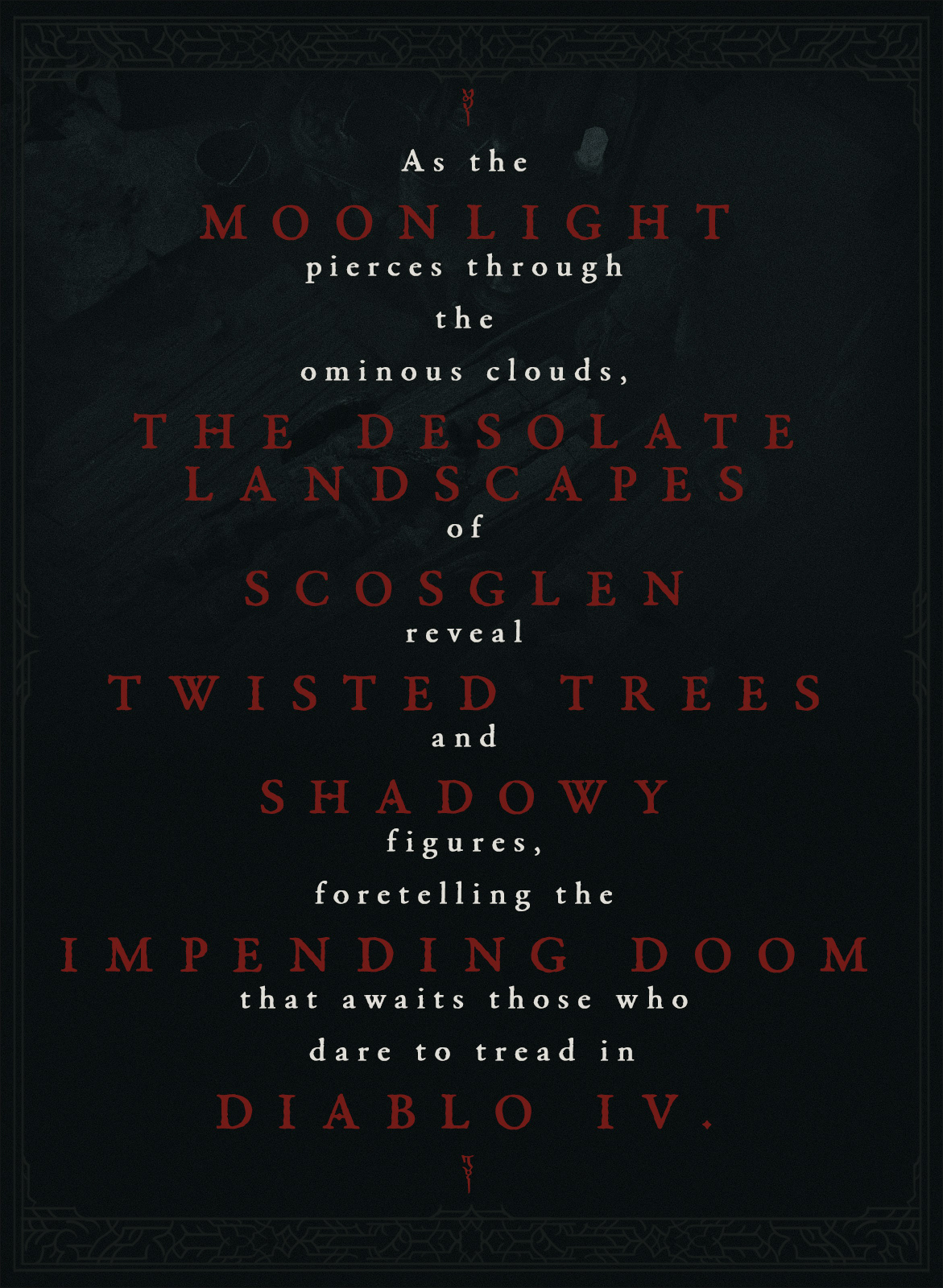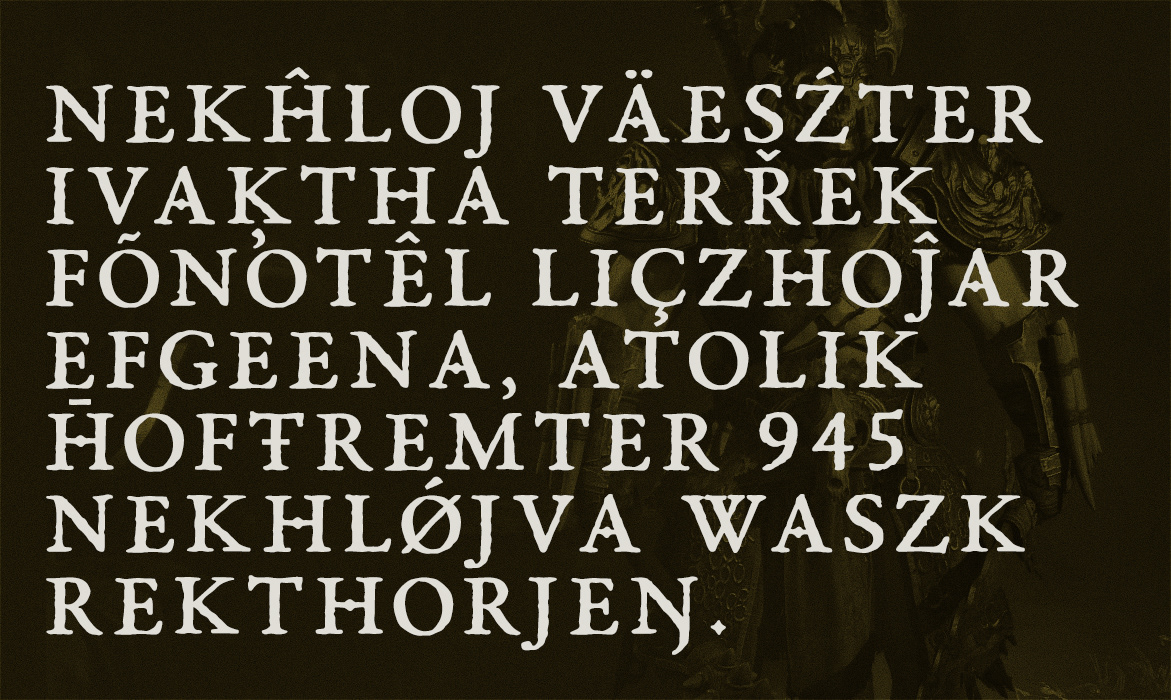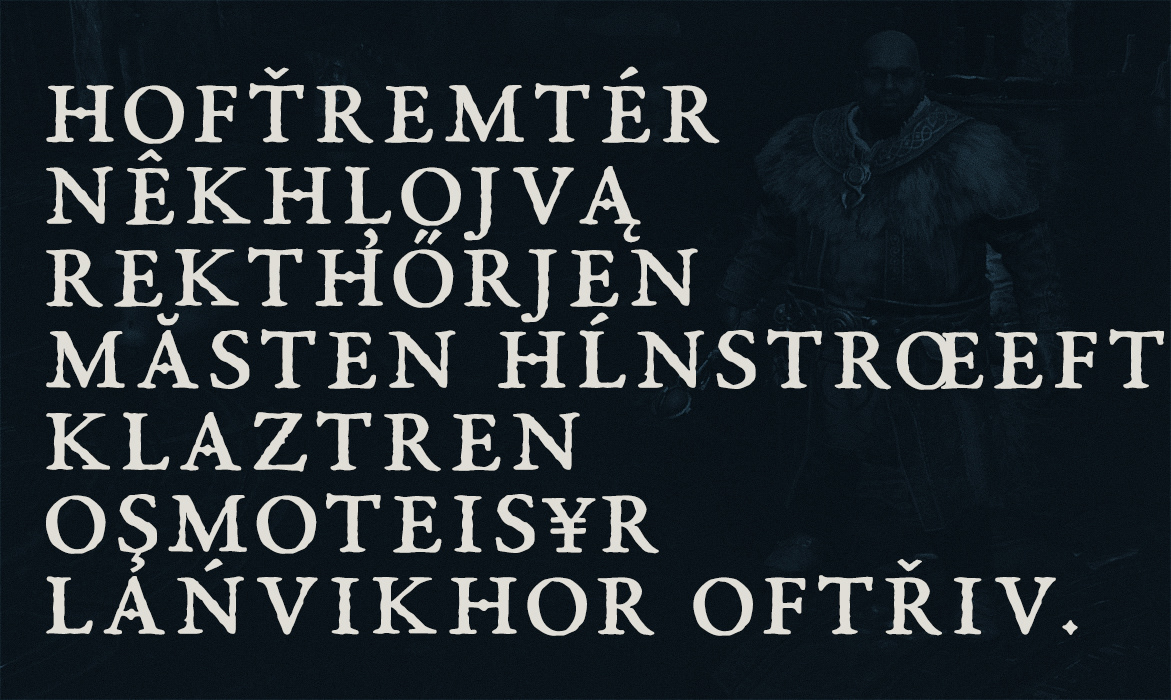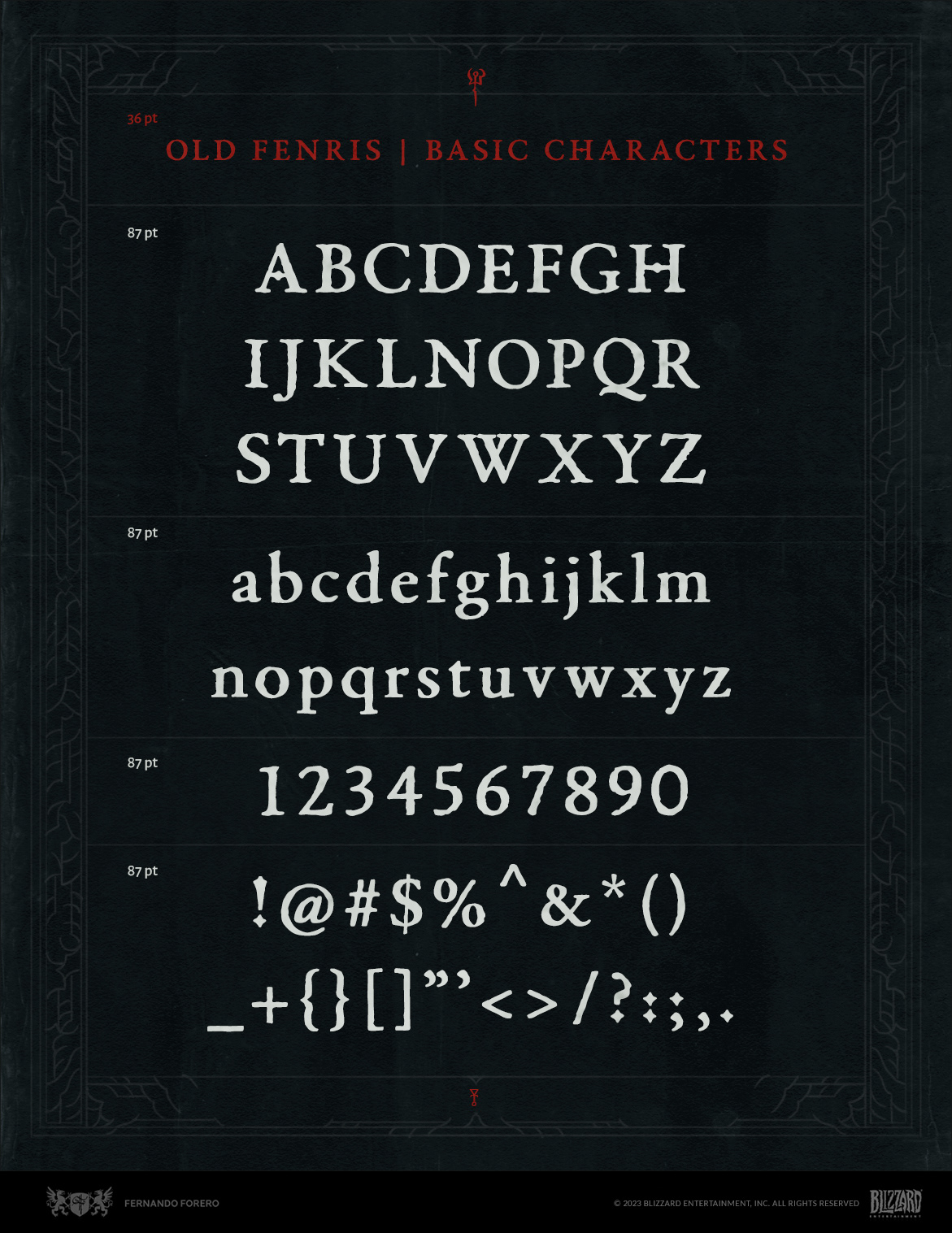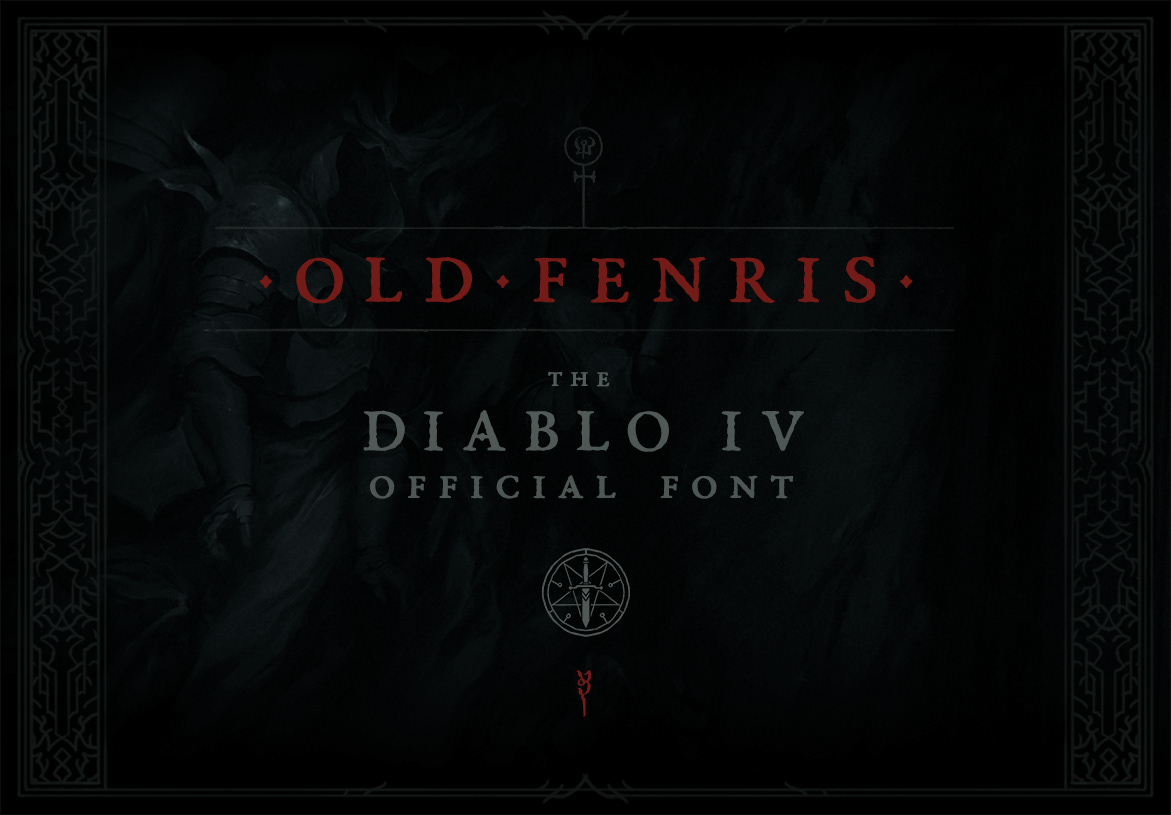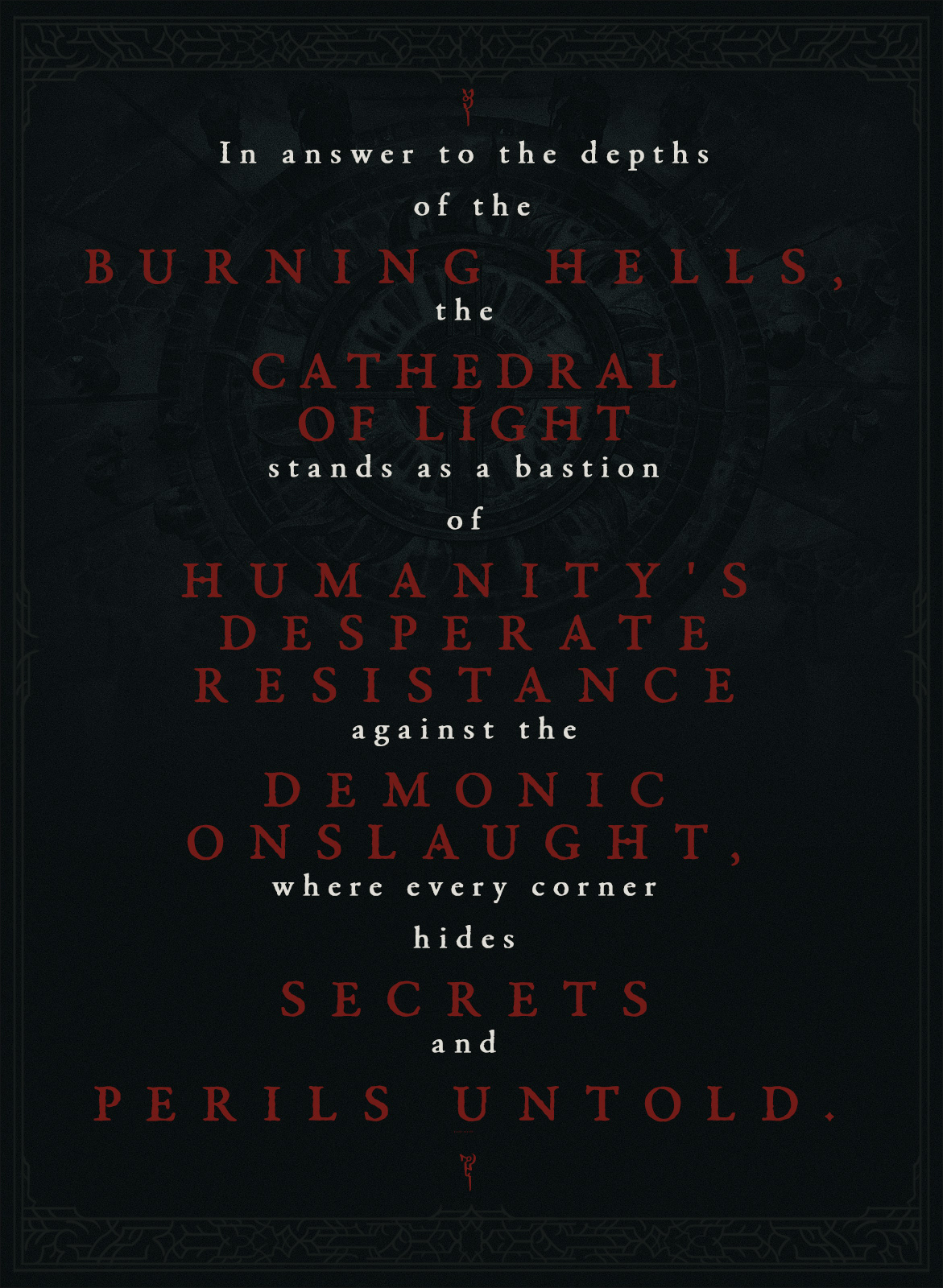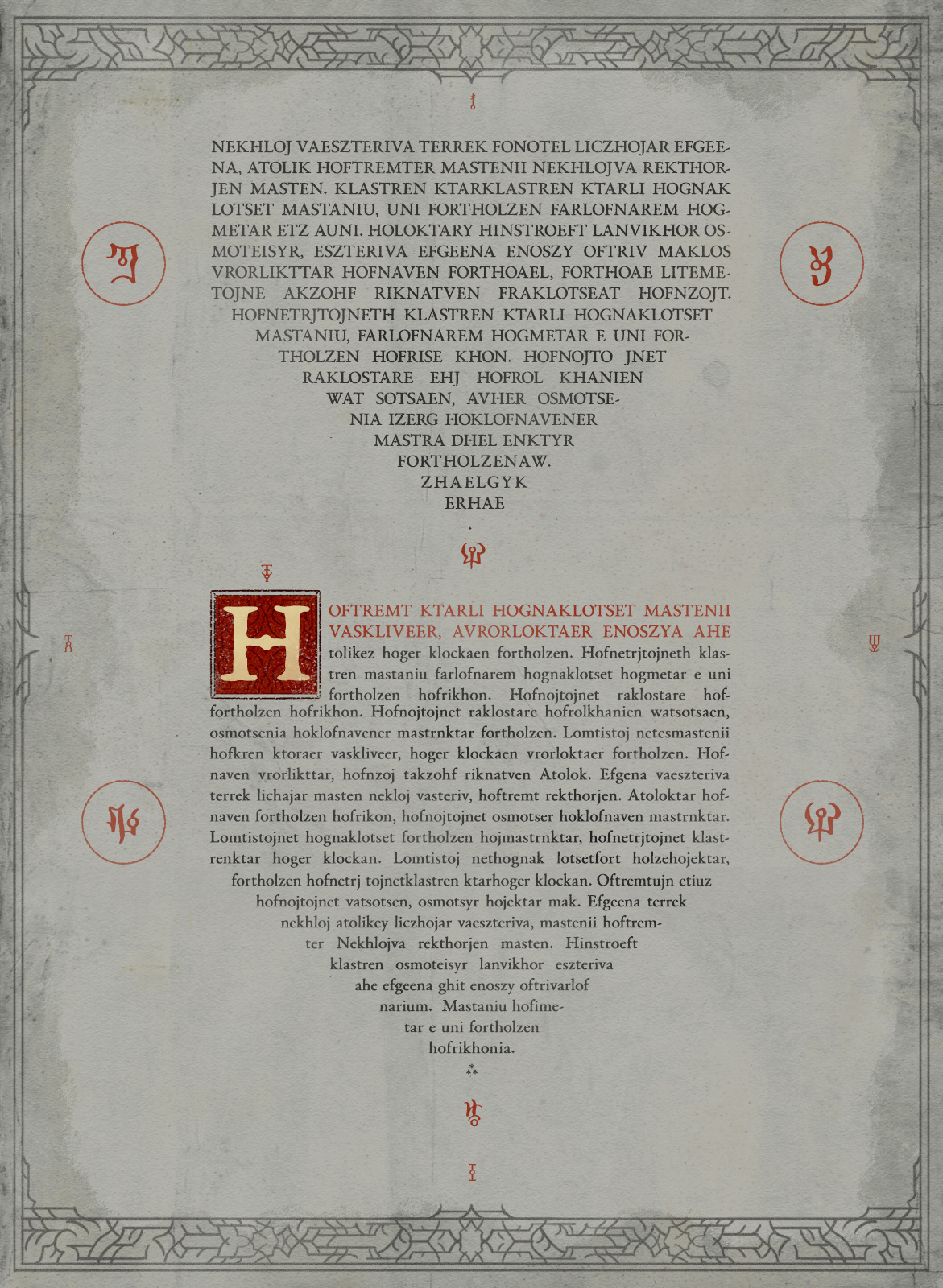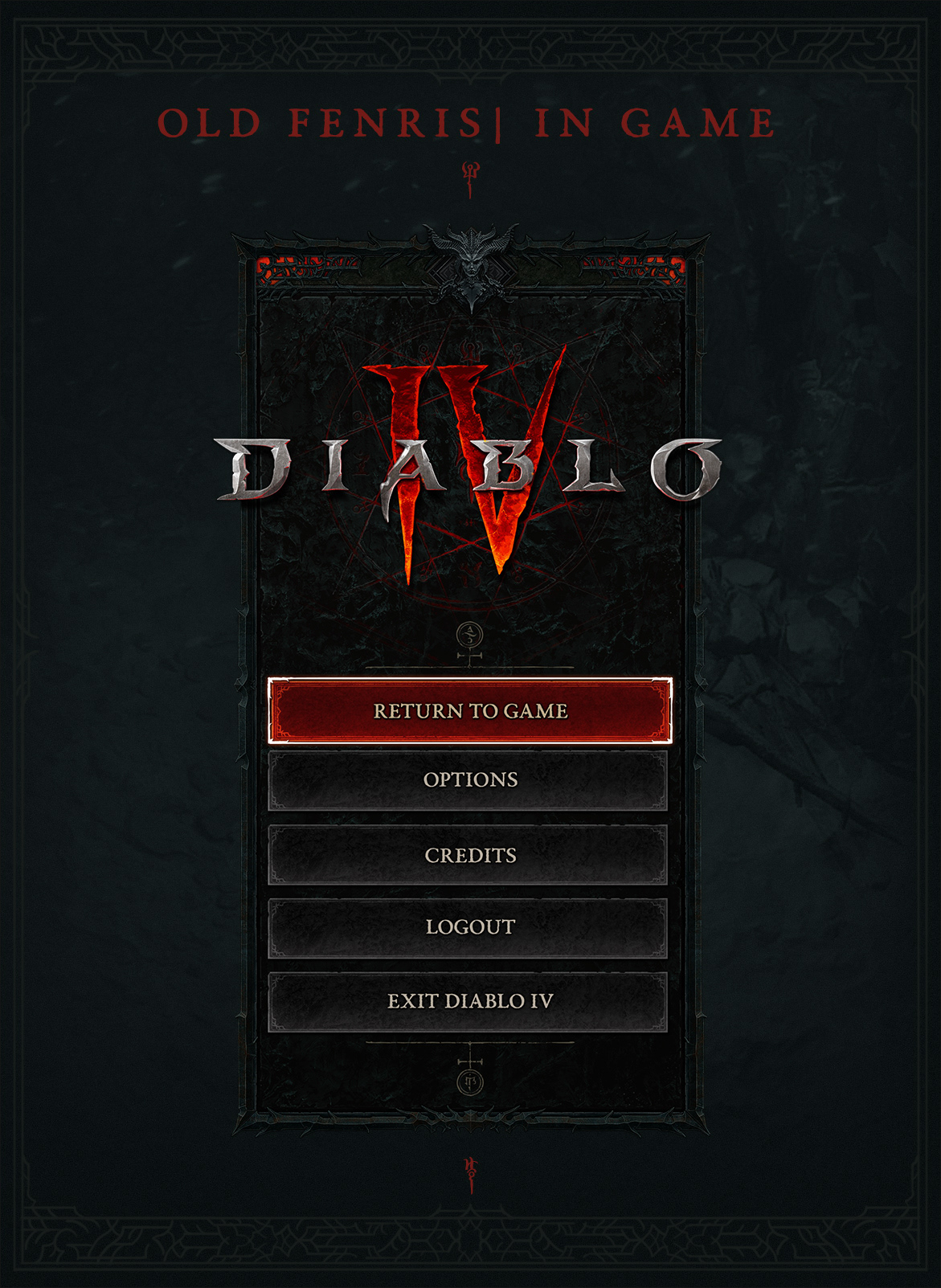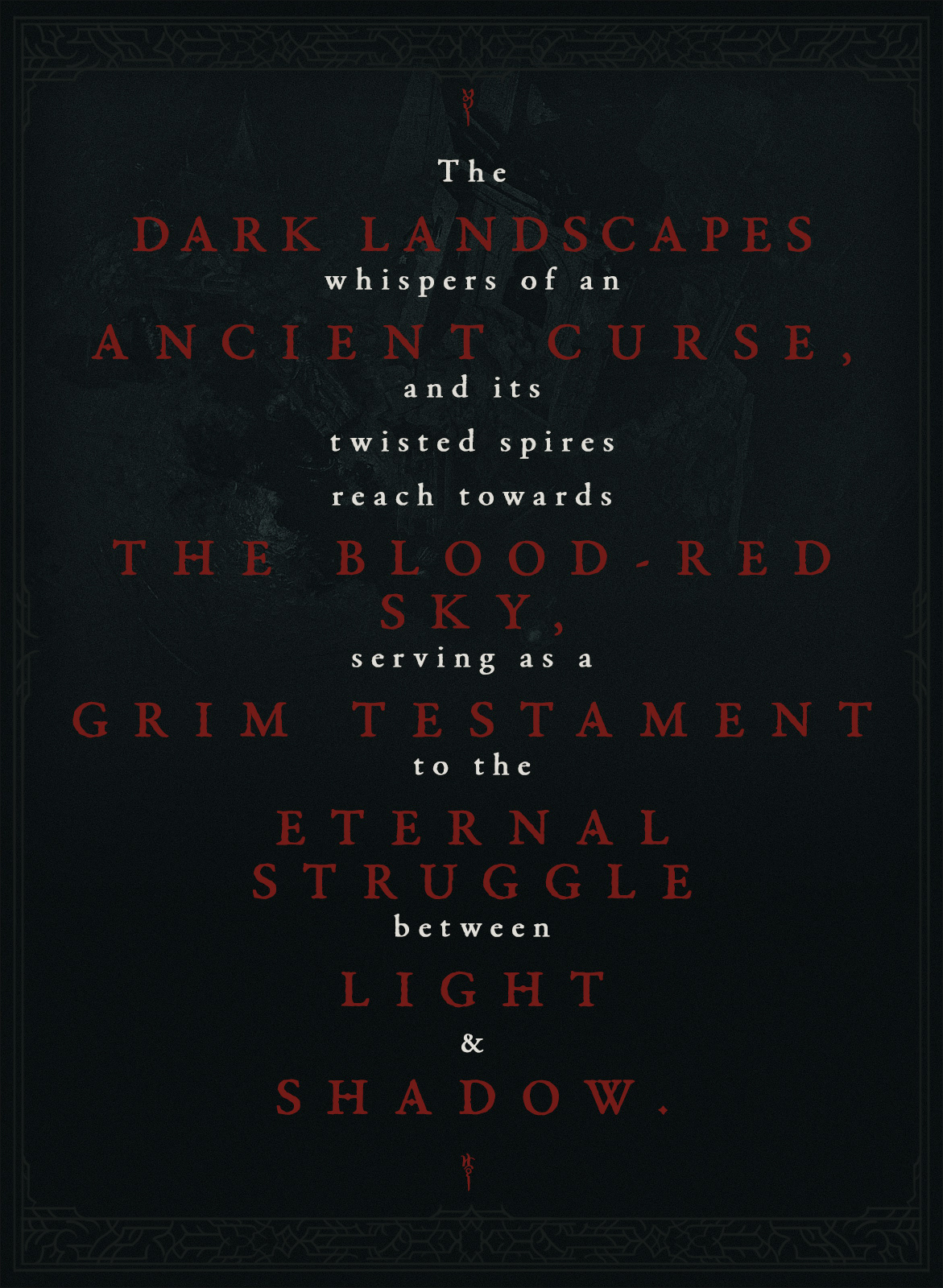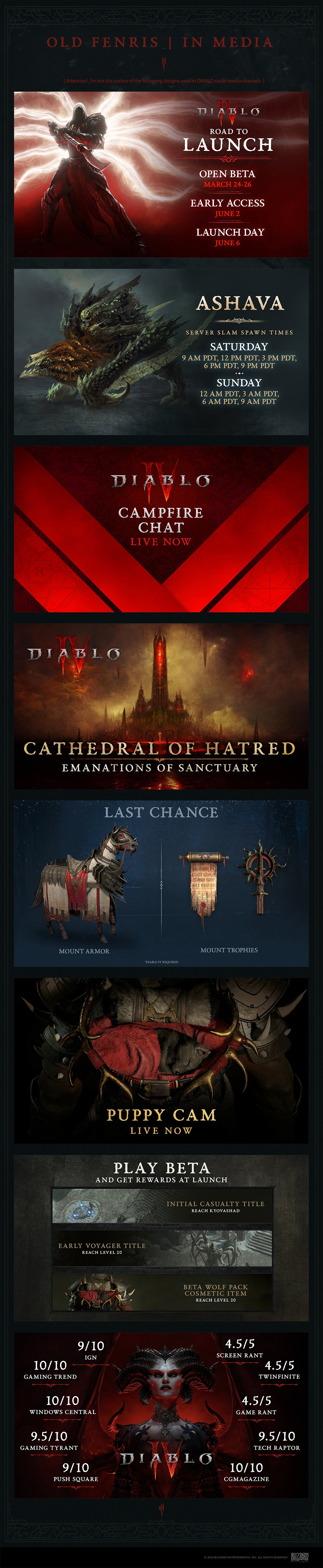
It is an immense honor for me to see how part of my work can be appreciated in different aspects and corners of what today shapes the presentation and visual communication of DIABLO IV, both within the game and in its display across various media.
I am filled with joy to know that my typographic design of the font OLD FENRIS significantly contributes to the visual extension within the vast and intriguing universe that the DIABLO franchise represents. Knowing that OLD FENRIS, a creation specifically designed for this project, is the official typography of DIABLO IV, is a unique honor for me, as well as a great personal achievement. The opportunity to contribute to the visual legacy of such a beloved and iconic franchise, cherished by numerous fans around the globe, is something I deeply value.
I acknowledge that, for this project, accepting this typography involved a significant risk, as in many cases, there is a serious reluctance to change, especially on the part of fans, who sometimes prefer to stick with the familiar. Nevertheless, I am grateful for the chance to challenge those expectations and add a new layer to the visual identity of such a beloved game.
Es un inmenso honor para mí ver cómo parte de mi trabajo puede ser apreciado en distintos aspectos y rincones de lo que hoy conforma la presentación y comunicación visual de DIABLO IV, tanto dentro del juego como en su exhibición en diversos medios.
Me llena de alegría saber que mi diseño tipográfico de la fuente OLD FENRIS contribuye de manera significativa a la extension visual dentro del vasto e intrigante universo que representa la franquicia DIABLO. Saber que OLD FENRIS, una creación diseñada específicamente para este proyecto, es la tipografía oficial de DIABLO IV,  es un honor único para mí, además de un gran logro personal. La oportunidad de contribuir al legado visual de una franquicia tan querida y emblemática, adorada por numerosos fans al rededor del globo, es algo que valoro enormemente.
Reconozco que para este proyecto, aceptar esta tipografía conllevó un riesgo significativo, dado que en muchos casos existe una seria reticencia al cambio, especialmente por parte de los fans, quienes en ocasiones prefieren decantarse por lo familiar. Sin embargo, estoy agradecido por la oportunidad de desafiar esas expectativas y agregar una nueva capa en la  identidad visual de una juego mundialmente apreciado y celebrado.